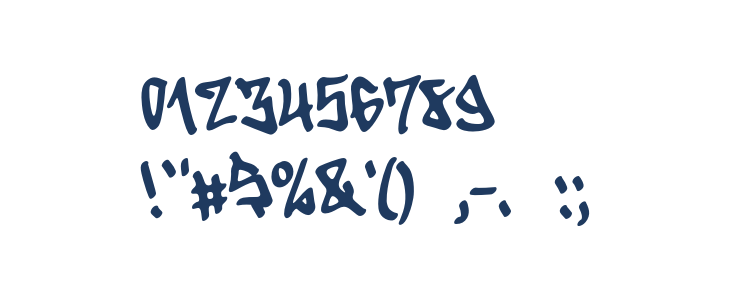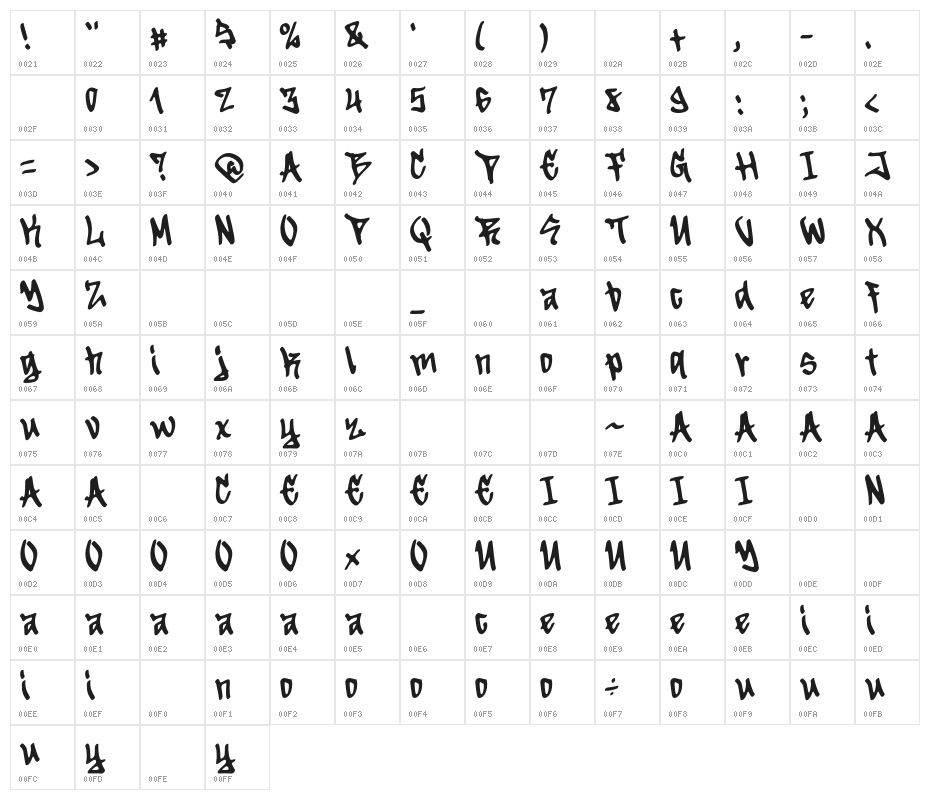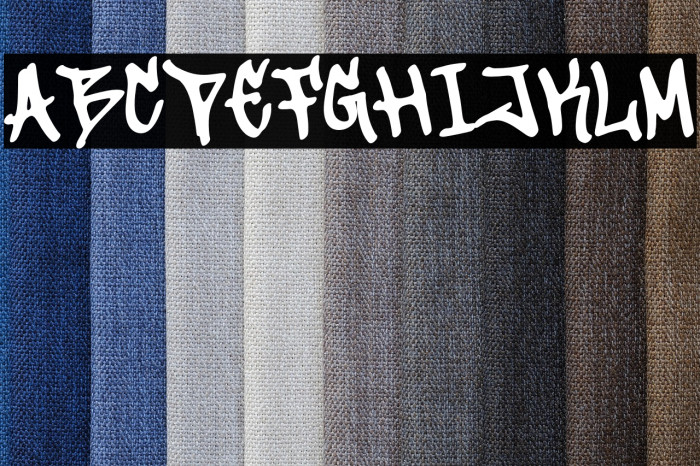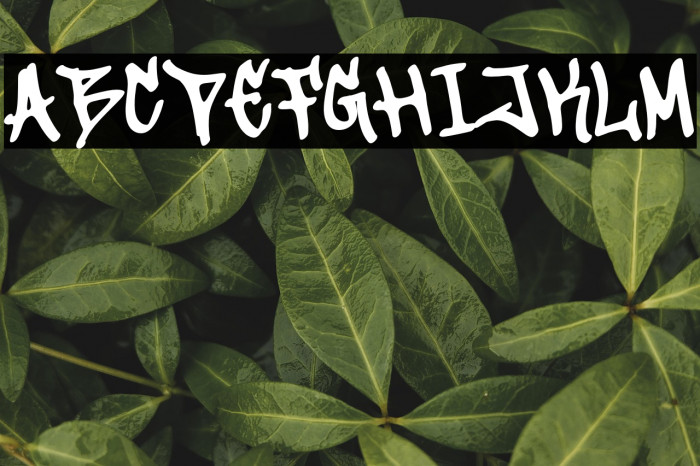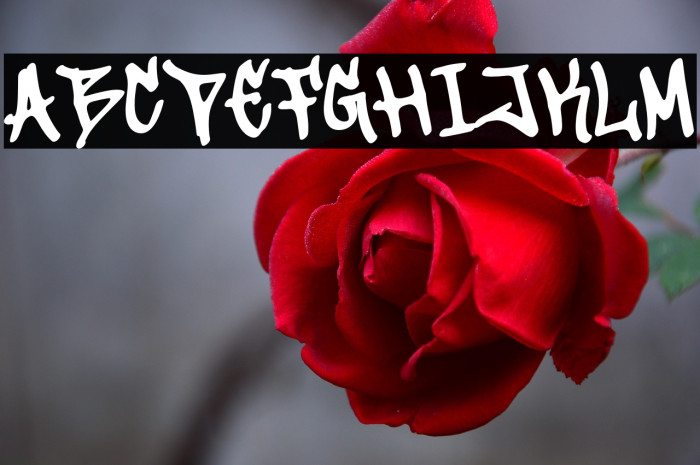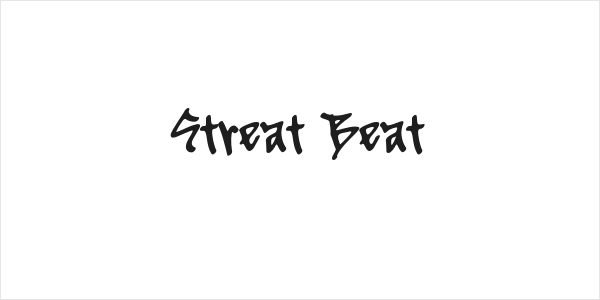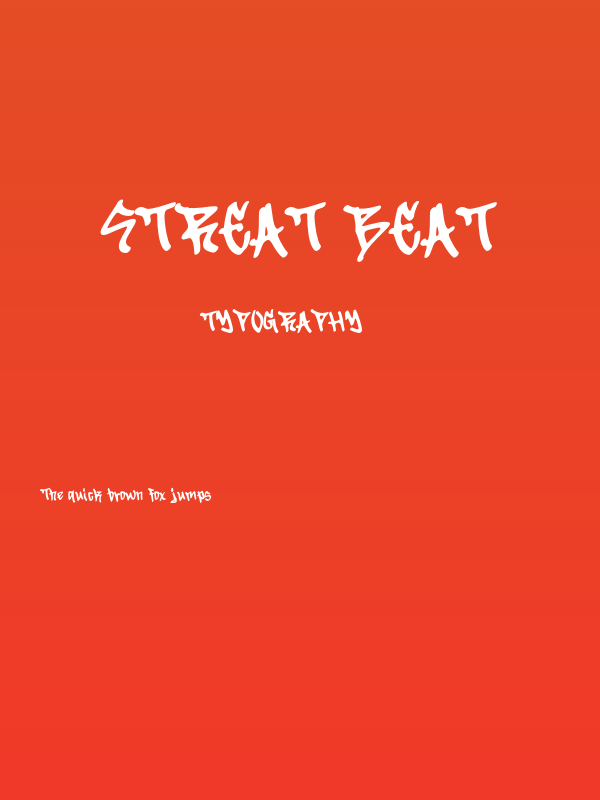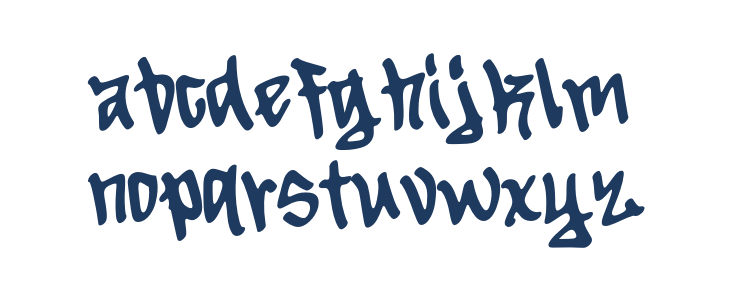
Streat Beat Font
Streat Beat Description
This font exudes a bold and dynamic graffiti-inspired style, characterized by its thick, expressive strokes and energetic flow. The uppercase and lowercase letters maintain a consistent, hand-drawn appearance, with a slightly irregular baseline that adds to its urban, street-art vibe. The numerals and special characters follow the same aesthetic, ensuring a cohesive look across all text elements. Its playful yet edgy design makes it stand out, capturing attention with its unique flair.
| Overall Style | Urban, Graffiti, Edgy |
| Use Case | Logos, Posters, Album Covers |
| Proposed Projects | Ideal for street art projects, urban-themed posters, music album covers, and edgy branding materials. |